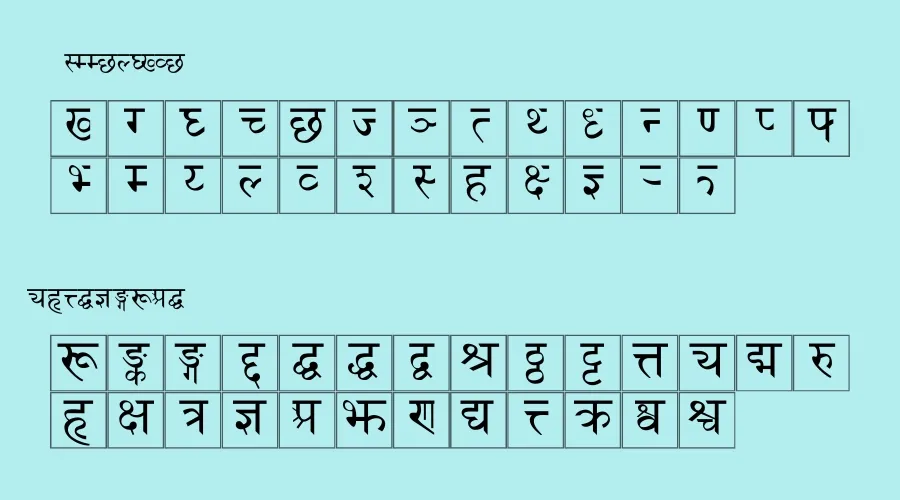
About Sanskrit Font
Designed with precision, Sanskrit Font merges script connections with creative expression in every character. This versatility makes it particularly effective for brand identities, where originality and creative impact directly impact communication quality. Each letterform demonstrates meticulous craftsmanship.
Technical excellence shines through elements like tapered strokes and discretionary ligatures, enhancing typographic versatility. In campaign headers settings, Sanskrit Font proves its worth through superior distance readability. The thoughtful execution of bowl shape and market positioning ensures professional results.